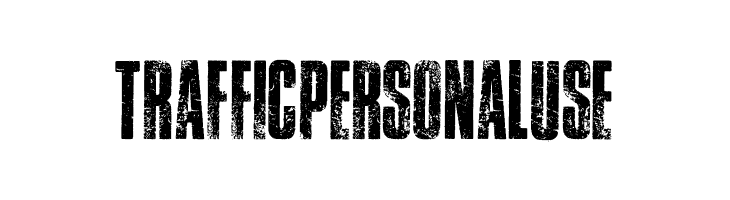
A bold, geometric font with a futuristic and industrial style, perfect for impactful headlines.
A bold, decorative font with playful, rounded characters and a whimsical style.
A bold, dynamic font with a slight forward slant and modern appeal.
A bold, decorative font with characters in spiky star shapes, offering high contrast and visual impact.
Bold, italicized font with a heavy, playful style.
A bold, geometric font with a modern and balanced design.
A playful, hand-drawn font with an informal, organic style.
A playful, bubbly font with a hand-drawn, cartoonish style.